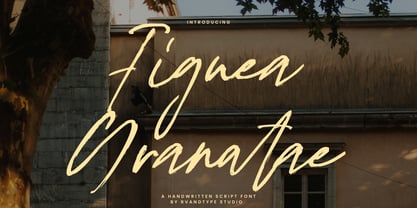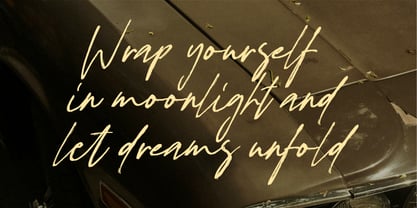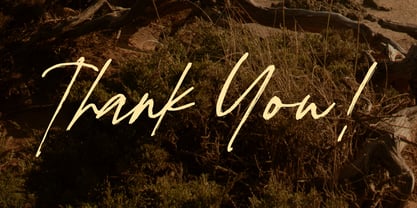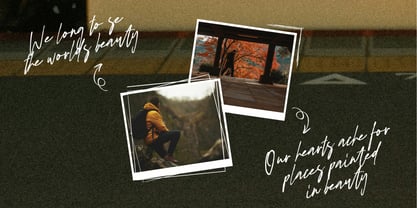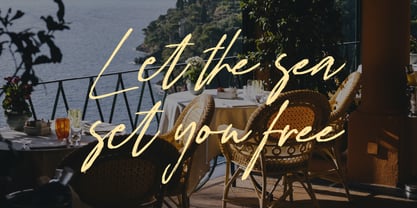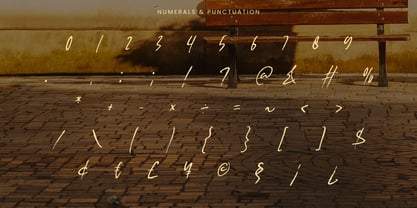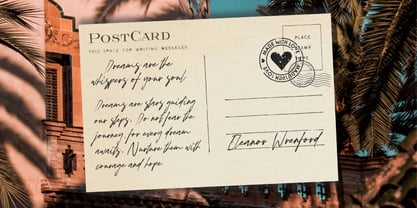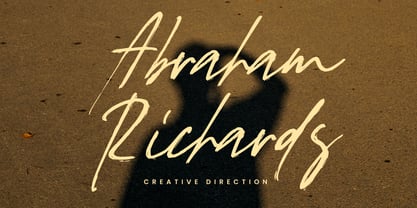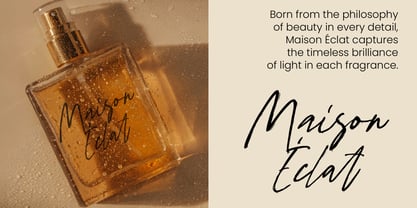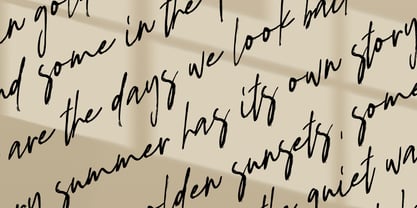
Figuea Granatae
by Rvandtype
The Figuea Granatae Font Family was designed by Randi Irvan and published by Rvandtype. Figuea Granatae contains 1 styles. More about this family
Figuea Granatae is a handwritten script font that combines the charm of natural penmanship with a touch of modern elegance. Designed with expressive strokes and flowing curves, this font brings a warm, personal, and artistic feeling to any project. Each letter carries the subtle imperfections of real handwriting, making your text look authentic and alive.
The font’s sleek yet organic style makes it highly versatile — whether you’re creating logos, branding materials, packaging, wedding invitations, greeting cards, posters, or social media content. Its casual yet refined appearance adapts beautifully to both contemporary and timeless design concepts.
One of Figuea Granatae’s strongest features is the balance between uppercase and lowercase letters, offering seamless readability while maintaining a handcrafted look. The strokes are slightly textured, giving a sense of freedom and spontaneity, as if they were written under the golden light of a Mediterranean summer afternoon.
This font embodies rustic charm, coastal elegance, and dreamy aesthetics, perfect for designers and creatives who want their work to radiate both authenticity and sophistication.